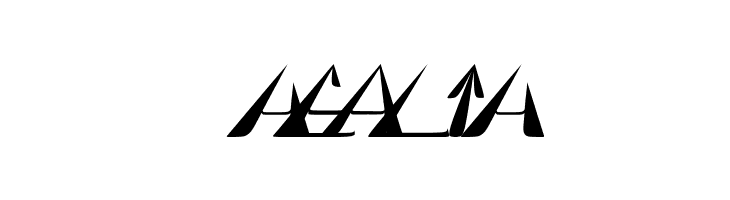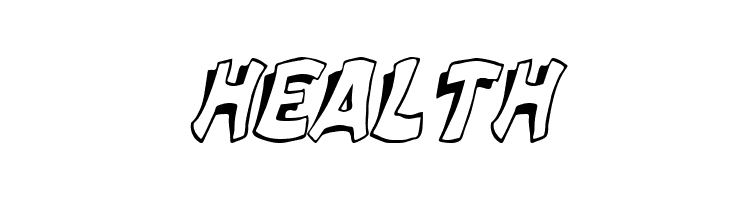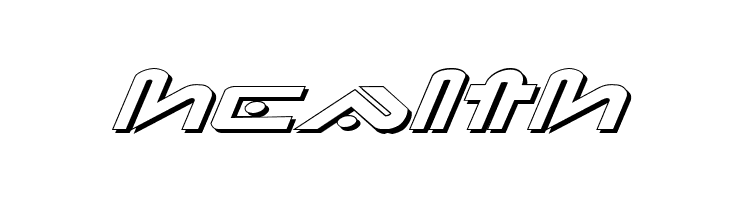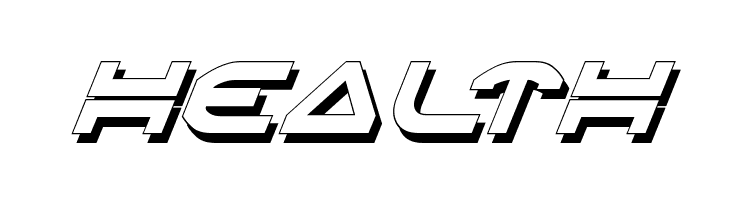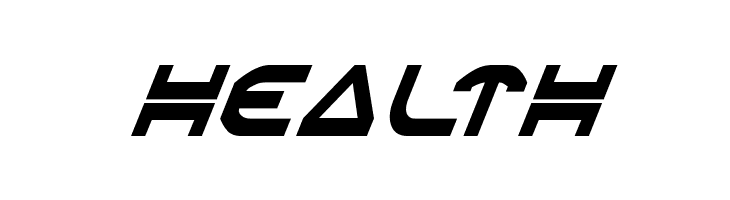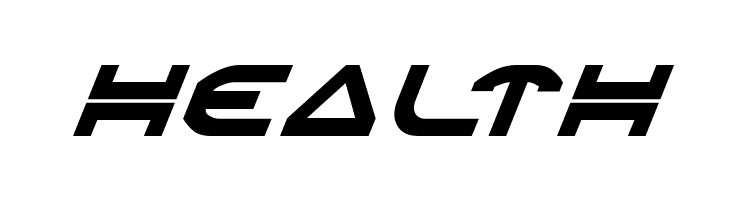
A playful, handwritten-style font with an italic slant and smooth, rounded strokes.
A bold, italicized font with a playful, cartoonish style.
A dynamic, italicized font with smooth, fluid strokes and a modern feel.
A bold, italic font with a dynamic and energetic style.
A bold, italicized font with a dynamic and modern style.
A bold, italic font with dynamic curves and a flowing style.
A bold, 3D italic font with a playful and dynamic style.
A bold, condensed, and italicized font with a dynamic and modern style.
A bold, italic font with gothic influences and sharp, angular strokes.
A bold, italicized blackletter-inspired font with sharp, angular lines.
A bold, condensed italic font with sharp angles and a dynamic style.
A bold, italicized font with a dynamic and modern style.
A bold, italic font with sharp, angular characters and a dynamic style.
A bold, condensed, and italic font with a modern, dynamic style.
A modern italic font with a unique striped pattern and dynamic slant.
A bold, italic font with a dynamic and elegant style.
An elegant italic font with smooth, flowing letterforms and a sophisticated appearance.
A modern italic font with a shadow effect, offering elegance and depth.
A dynamic, left-leaning italic font with artistic flair and unique character design.
A bold, geometric italic font with a futuristic and playful style.
A bold, geometric italic font with a shadow effect for a dynamic, modern look.
A bold, geometric, condensed italic font with a retro-futuristic style.
A bold, futuristic italic font with sharp angles and geometric shapes.
A bold, expanded, and italic font with a dynamic and playful style.
A bold, condensed, and italicized font with a dynamic and strong presence.
A bold, italic, outlined font with a playful and dynamic style.
A bold, italic font with a dynamic and playful style.
A bold, playful font with a shadow effect and slight italicization.
A dynamic oblique-italic font with sharp angles and elongated forms.
A bold, condensed, and italicized font with a playful and dynamic style.